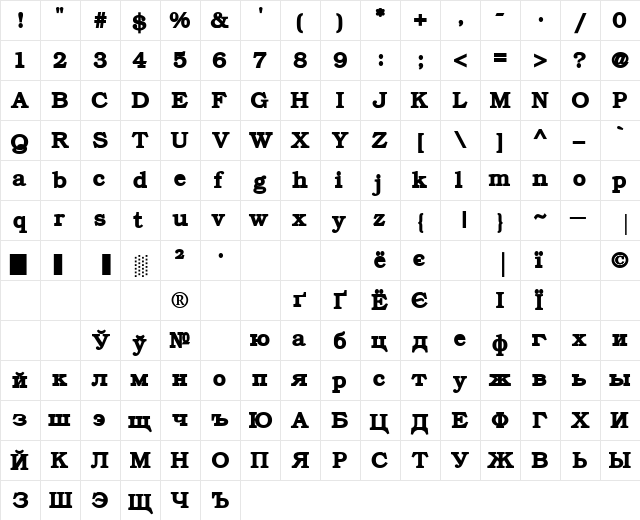
ER Bukinist KOI-8 Bold
Design Context for ER Bukinist KOI-8 Typeface
ER Bukinist KOI-8 offers clean, dependable letterforms without strong stylistic allegiance, making it a practical choice for designers who need flexibility. Its bold stroke weight gives it real presence on the page.